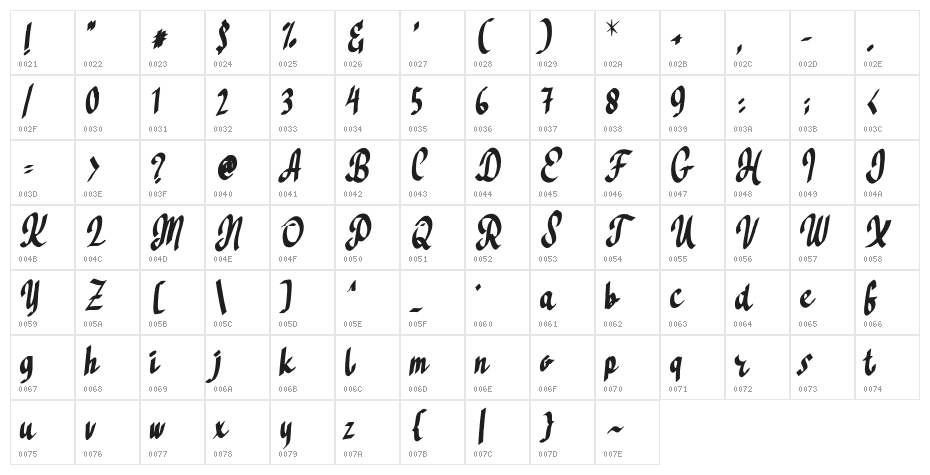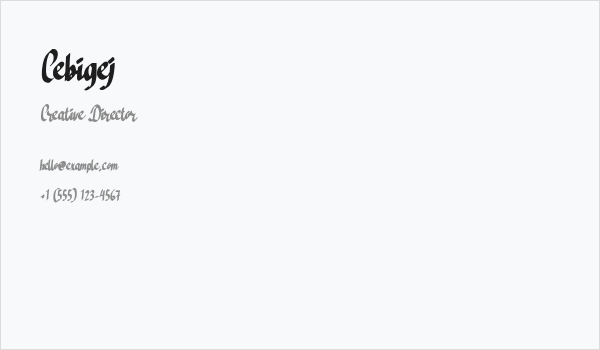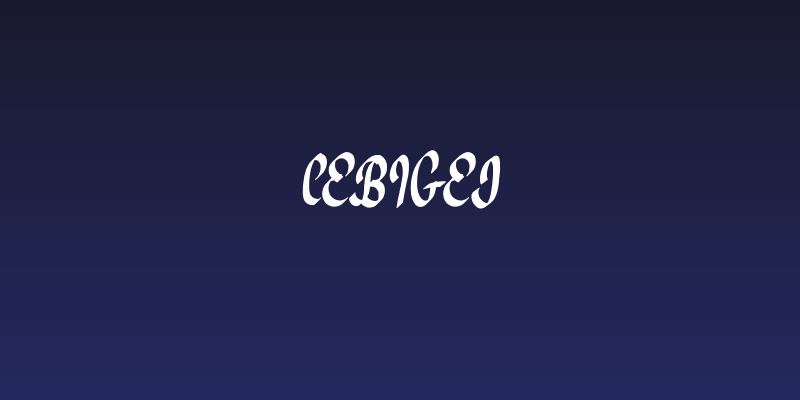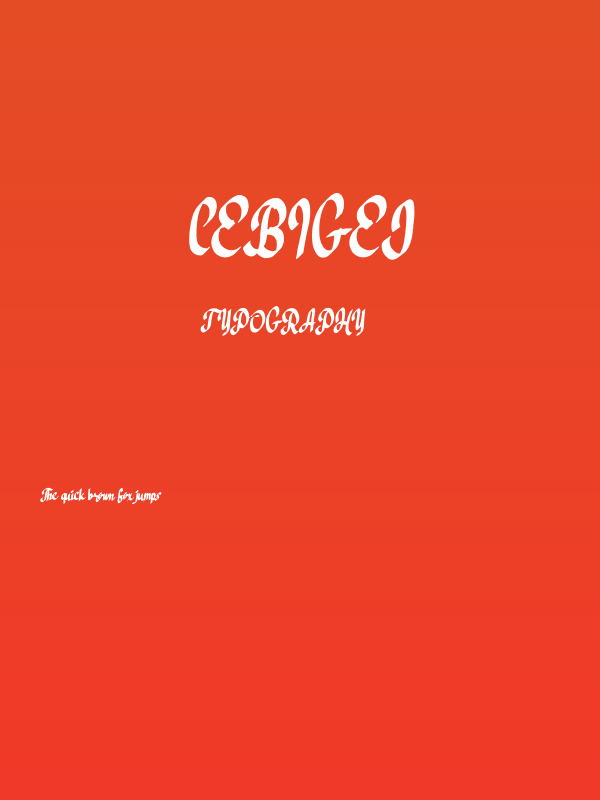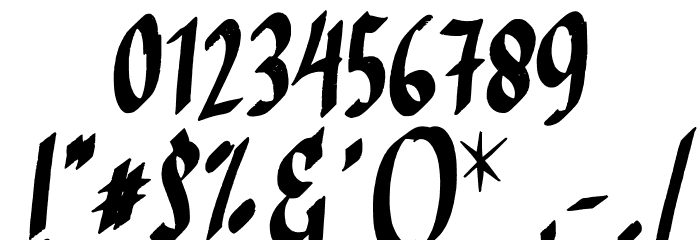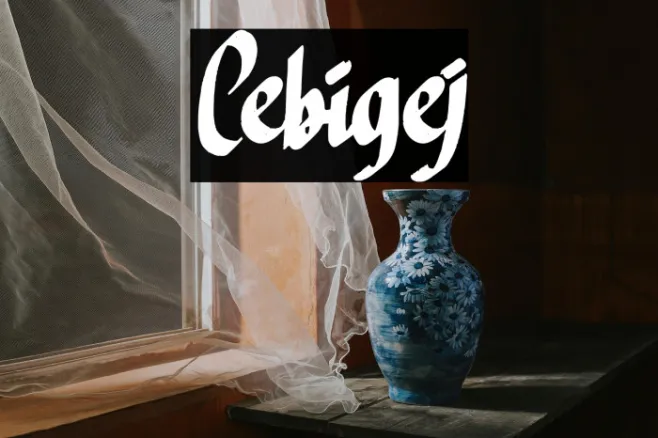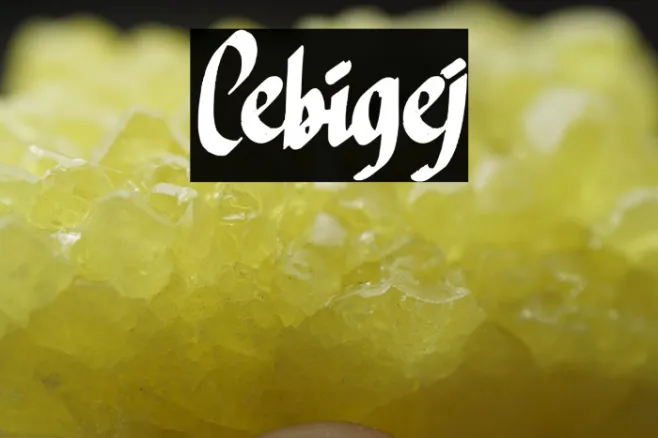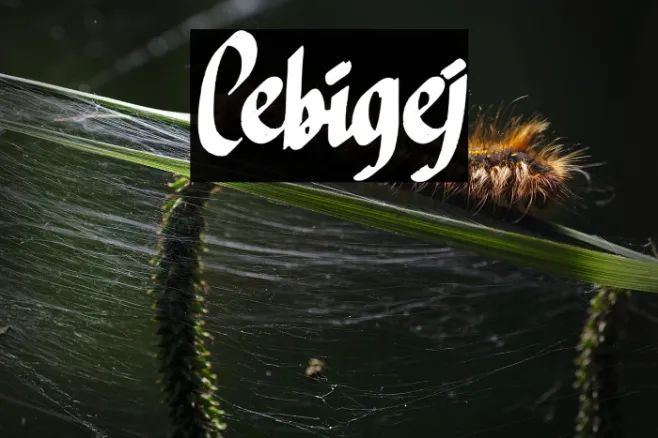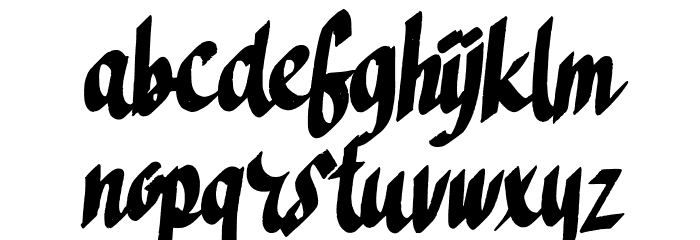
Cebigej Font
Cebigej Description
This font features a bold and dynamic script style with a strong presence. The letters are connected in a fluid manner, giving it a handwritten, calligraphic appearance. The strokes are thick and expressive, with a slight slant that adds to its energetic feel. The uppercase letters are particularly striking, with dramatic flourishes and curves. The lowercase letters maintain the same boldness, ensuring consistency throughout. Numbers and special characters are designed to match the overall aesthetic, making it versatile for various uses.